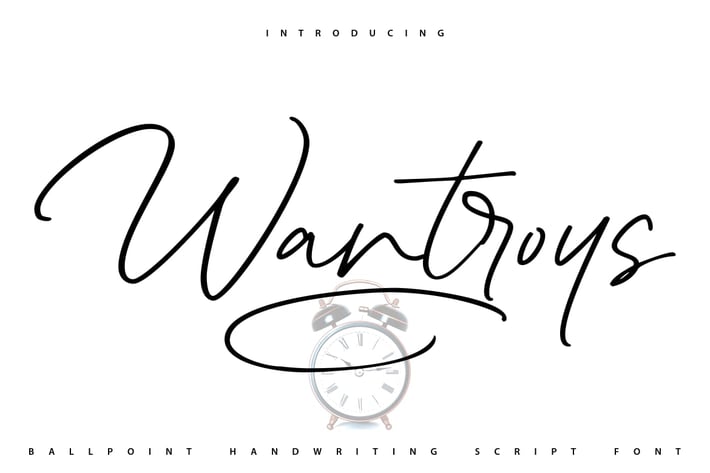
Wantroys | Ballpoint Handwriting Script Font
Wantroys | Ballpoint Handwriting Script Font with a calligraphy style, So beautiful on invitation like greeting cards, branding materials, business cards, quotes, posters, and more!